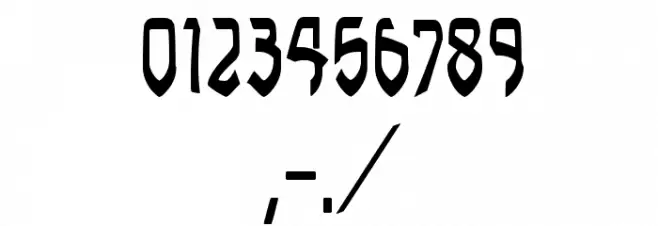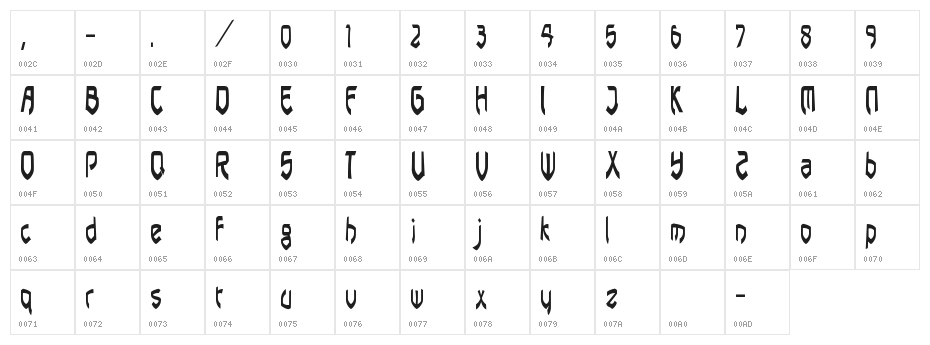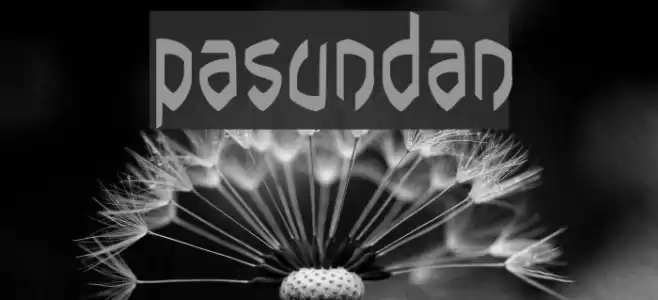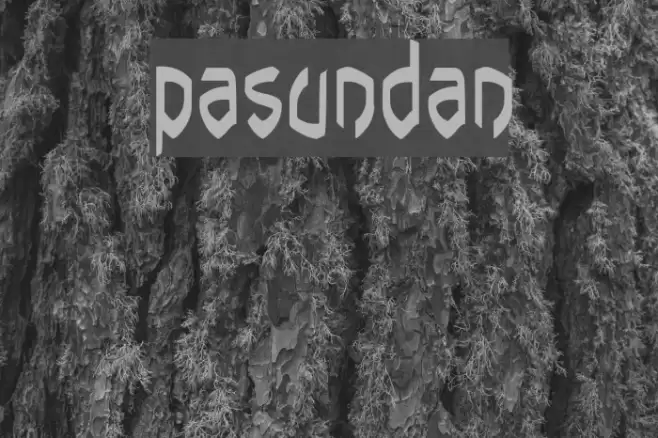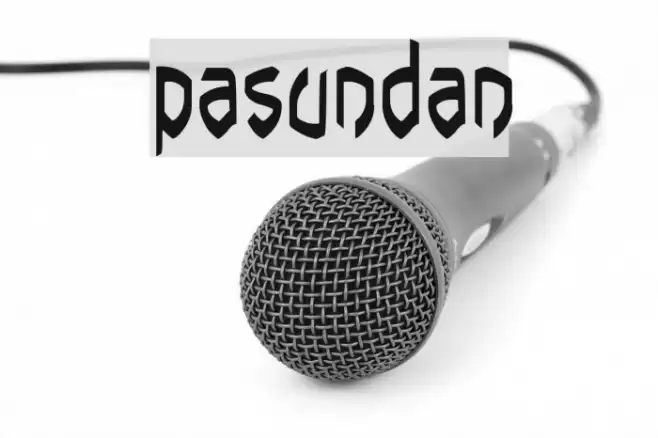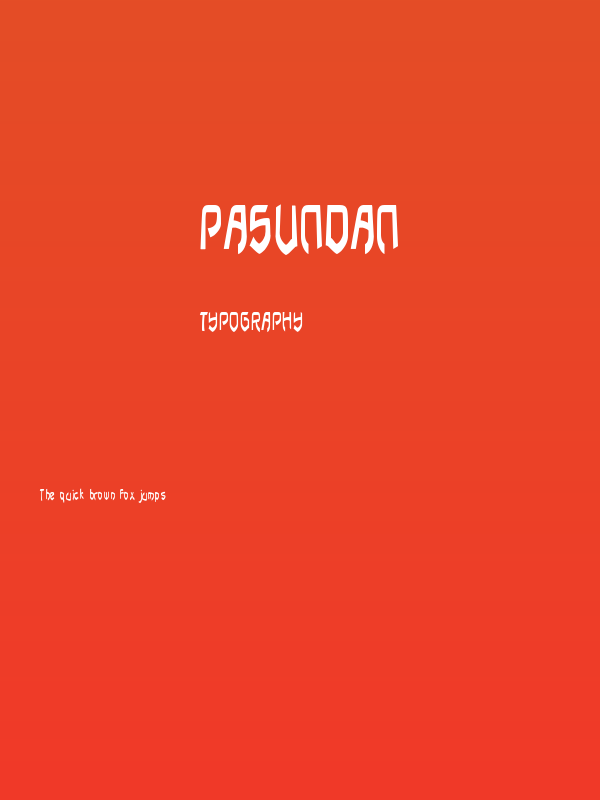
pasundan Font
pasundan Description
This font features a bold and angular design, characterized by sharp edges and a geometric structure. The uppercase letters have a distinct, almost futuristic appearance with a strong presence, while the lowercase letters maintain a consistent style that complements the uppercase. The numbers and special characters follow the same design principles, ensuring uniformity across all characters. The font's unique style makes it stand out, offering a modern and edgy aesthetic that can be used to create a striking visual impact.
| Proposed Projects | Ideal for branding, posters, and any project requiring a modern, edgy look. |